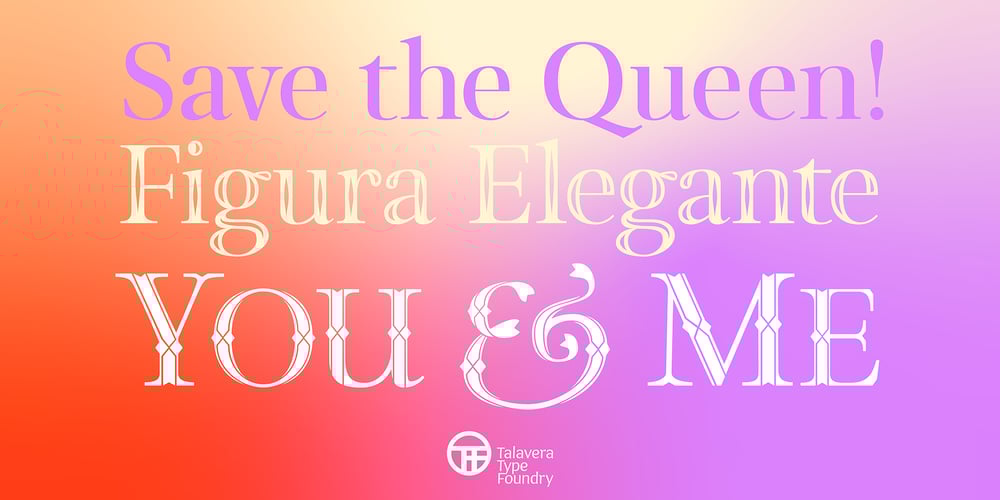
Keizer Font Family was designed by Jesus Barrientos and published by Talavera. Keizer contains 6 styles and family package options. Keizer is a serif display typeface freely inspired by the display metal fonts of the early XXth century, reminiscent of those used in cartographic and book design. Its five versions display an open-face, an inline-flared, outline and decorated capitals, and an essential titling high-contrasted serif face. Keizer works well both on print and screen, ideal for book covers, posters and logos. Every weight includes small caps, petite caps, stylistic alternates and a neat set of ornaments.